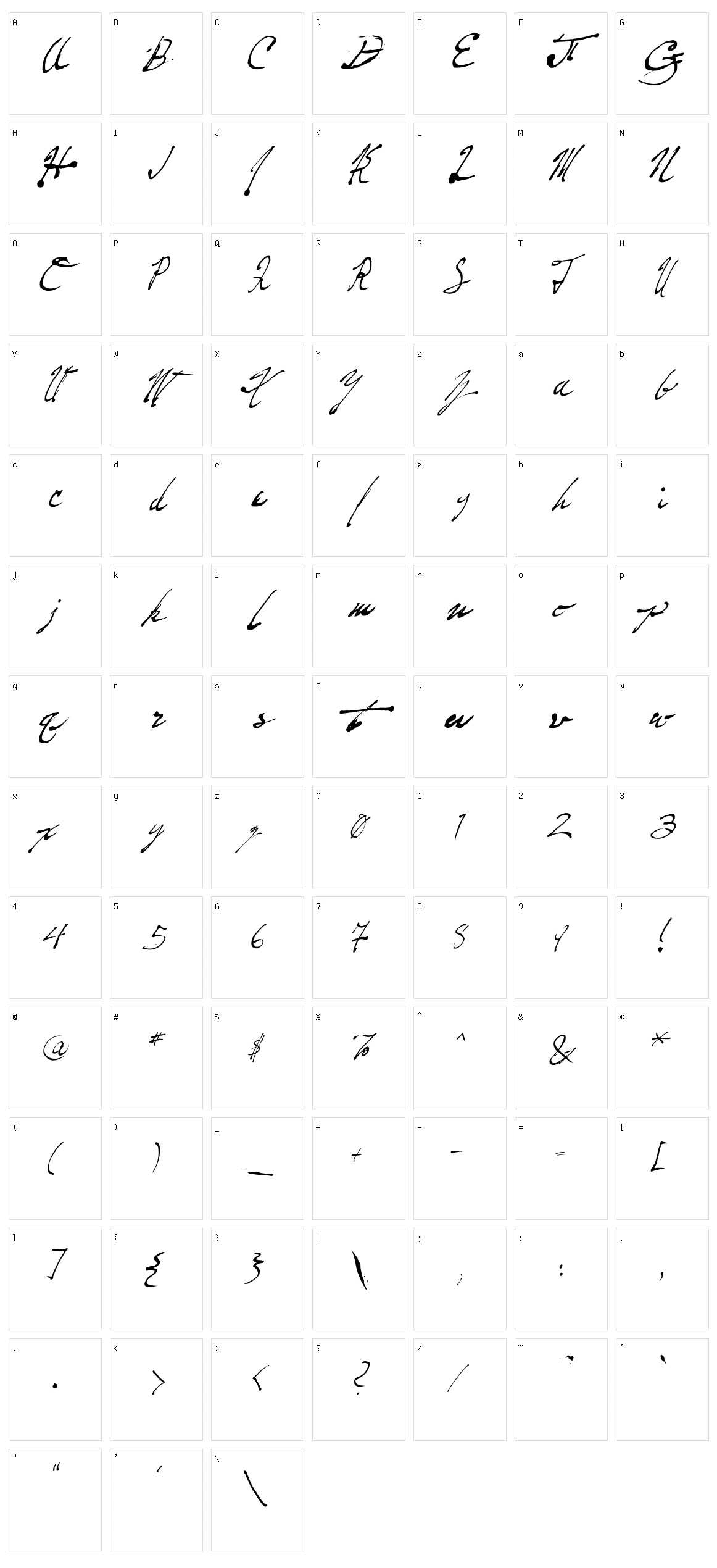
The free font Fountain Pen Frenzy is carefully designed by Redruth's Basement Software, showcasing a thoughtful balance of creativity and usability and falls under the Script font style. When you download the ZIP file, it contains only 29.58 KB of font files, making it lightweight and quick to download. Please review the license details below to understand permitted usage and distribution rights. If license information is not available, we recommend using this font for personal projects only or contacting the author directly for commercial usage permissions.
Fountain Pen Frenzy
This font is distributed as-is, and has no warranties on it whatsoever, except that I am fairly sury it's virus-free and know that it works. It is based on handwritten characters written with an old fountain pen, which died as the font was completed. All keyboard characters are represented, and I was kind enough not to subject you to that wretched random rectangle for undefined characters. I played up on the pen's poor ink flow, so if it looks like a smudge or a blot, it probably is.